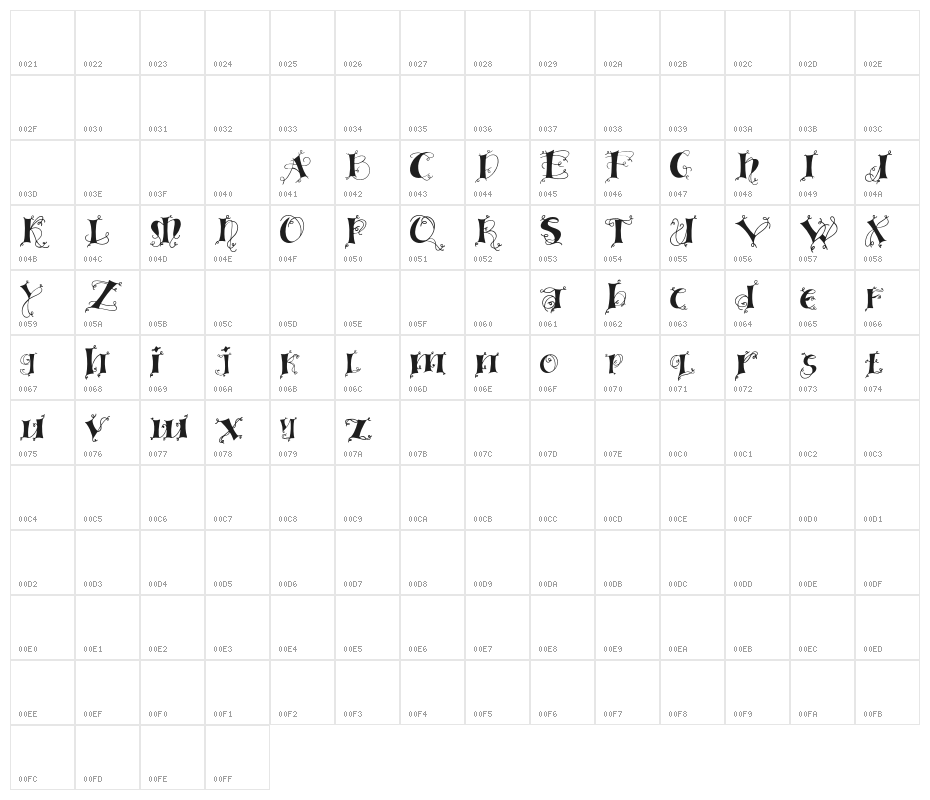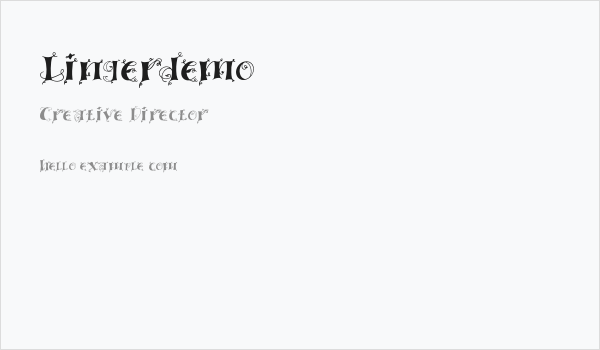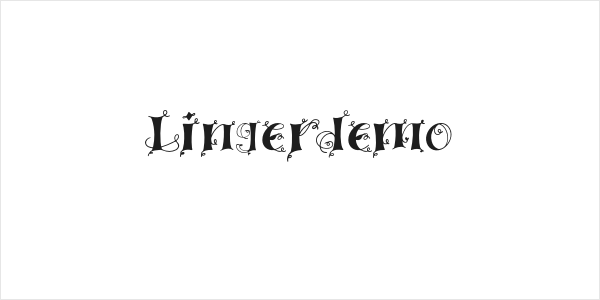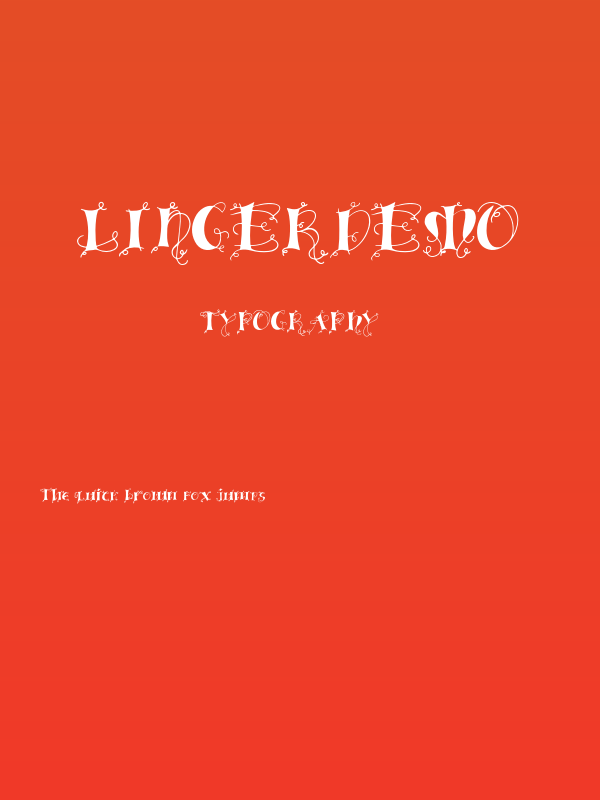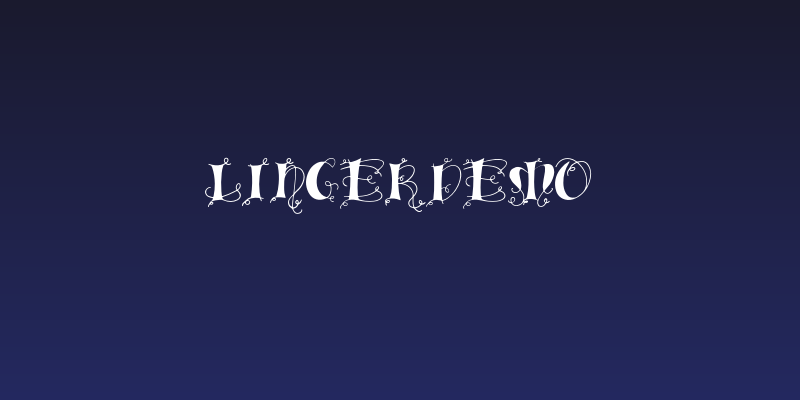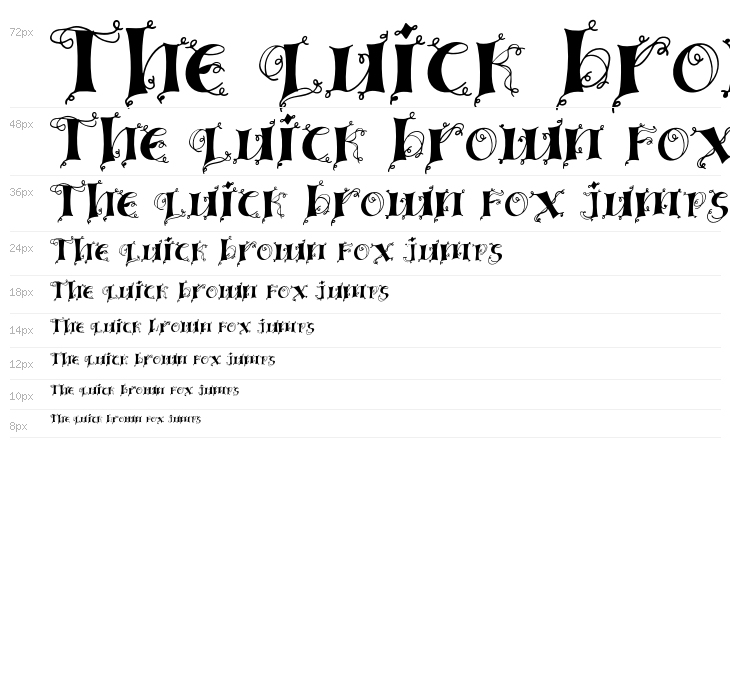
Lingerdemo Font
Lingerdemo Description
This font features an elaborate and decorative style, characterized by intricate swirls and flourishes extending from each letter. The uppercase and lowercase letters are adorned with ornate embellishments, giving the font a whimsical and artistic appearance. The characters are bold and have a high contrast between thick and thin strokes, enhancing their visual impact. The overall design is reminiscent of a fairy tale or fantasy theme, making it suitable for creative and imaginative projects.
| Use Case | Headlines, Logos, Artistic projects |
| Proposed Projects | Ideal for fantasy-themed book covers, invitations, greeting cards, and artistic posters. |